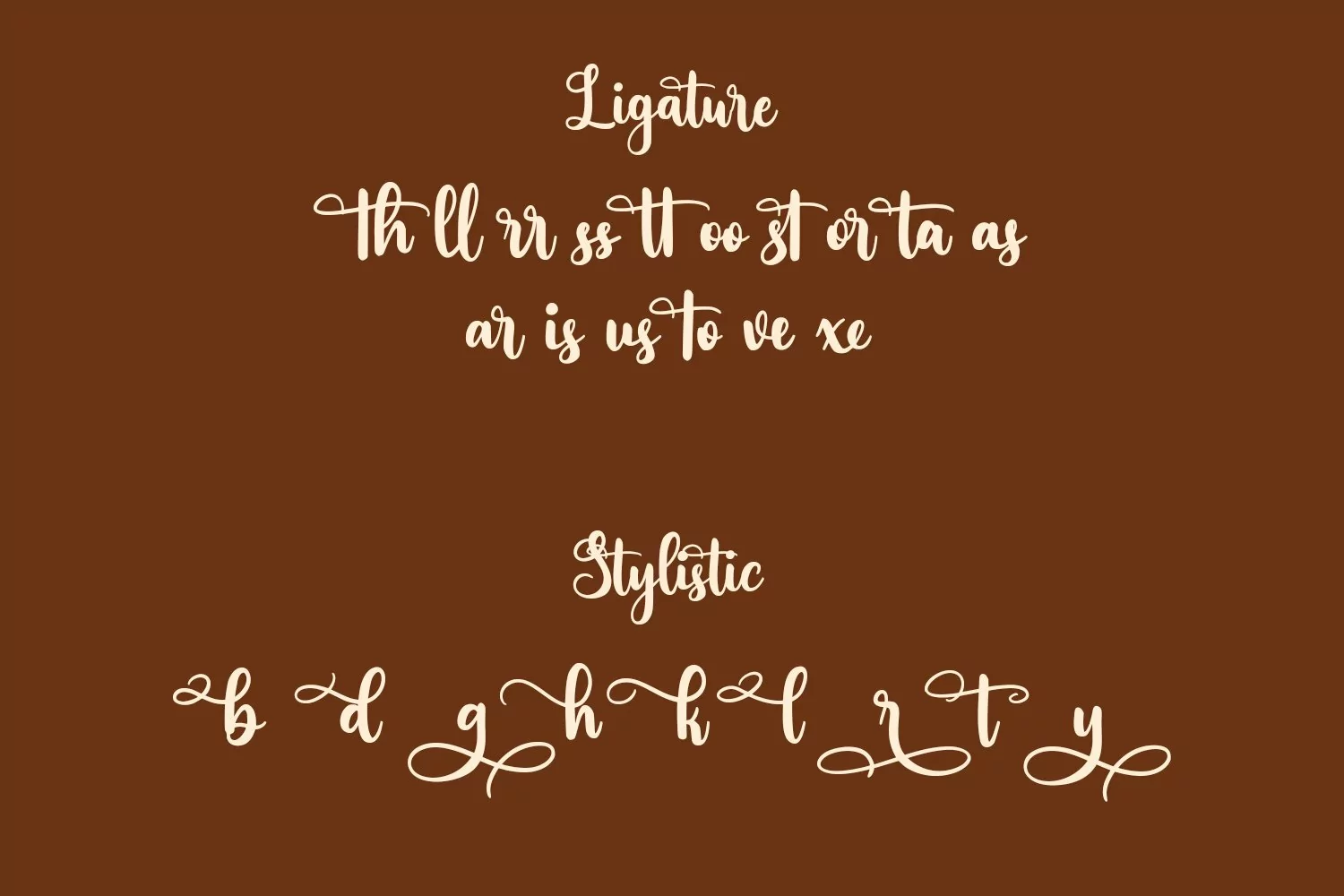
Vinylatte is a fancy handwritten script font. With bold contrast stroke, fun character with a bit of ligatures and alternates. To give you an extra creative work. Vinylatte font support multilingual more than 100+ language. This font is good for logo design, Social media, Movie Titles, Books Titles, a short text even a long text letter and good for your secondary text font with sans or serif. Make a stunning work with Vinylatte font.